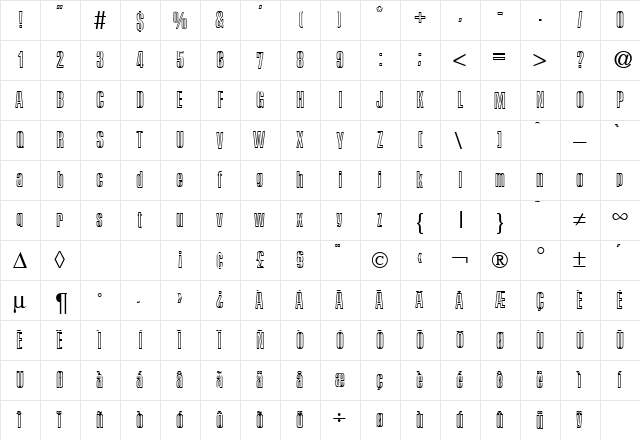
PersistentOutline DB Bold
Design Context for PersistentOutline DB Typeface
PersistentOutline DB is built around its visual character rather than neutral utility — its distinctive forms are designed to make an impression at display sizes. The heavy weight commands attention and anchors typographic hierarchies.
Font Pairing: Pair with a clean neutral sans-serif for body copy to let PersistentOutline DB's character lead without overwhelming the composition.
Pro Tip: Use PersistentOutline DB exclusively at display sizes — it was designed to be seen, not read at length. Let a neutral companion handle body copy.